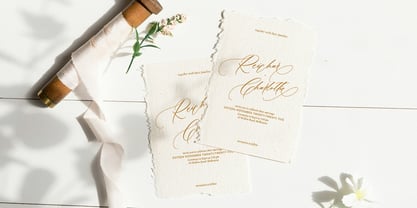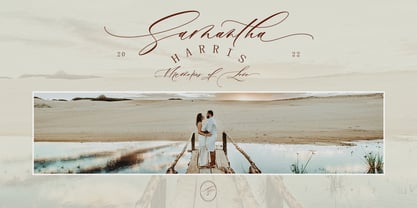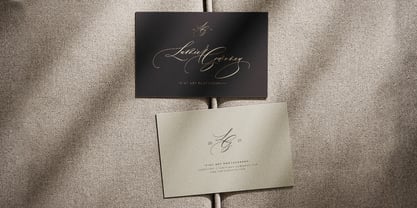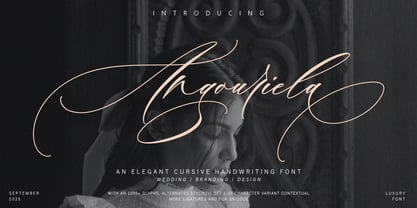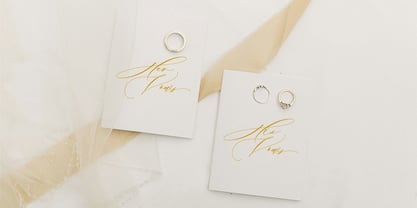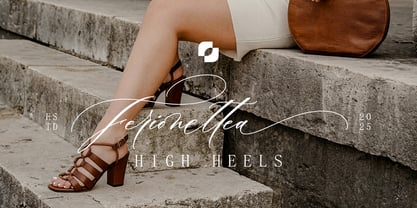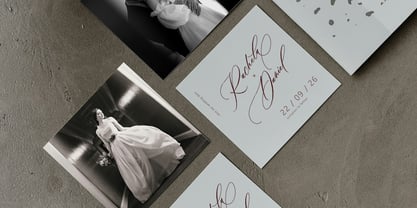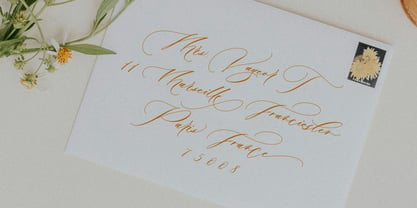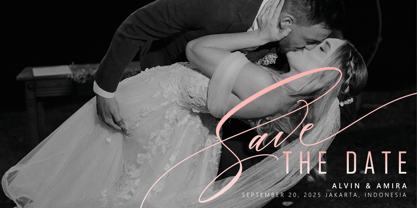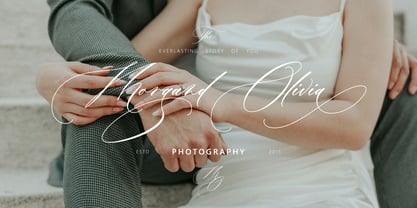
Angouriela
by Jamalodin
The Angouriela Font Family was designed by Jamaluddin and published by Jamalodin. Angouriela contains 1 styles. More about this family
Angouriela is a beautiful Handwritten script font that is suitable for branding, wedding invitations, greeting cards, posters, name card, quotes, blog header, logo, fashion, apparel, letter, stationery and other projects. Angouriela come with 1000+ glyphs. The alternative characters were divided into several Open Type features such as Swash, Stylistic Sets, Stylistic Alternates, Contextual Alternates. The Open Type features can be accessed by using Open Type programs such as Adobe Illustrator, Adobe InDesign, Adobe Photoshop Corel Draw X version, And Microsoft Word. And this Font has given PUA Unicode (specially coded fonts). so that all the alternate characters can easily be accessed in full by a craftsman or designer. Uppercase ( Two style ) & Lowercase International Language & Symbols Support Punctuation & Number PUA Unicode Range Standard Stylistic Alternates Stylistic Set 1-28 Character Variant Contextual. If you don't have a program that supports OpenType features such as Adobe Illustrator and CorelDraw X Versions, you can access all the alternate glyphs using Font Book (Mac) or Character Map (Windows). If you have any question, don't hesitate to contact me. Thanks for your visit.